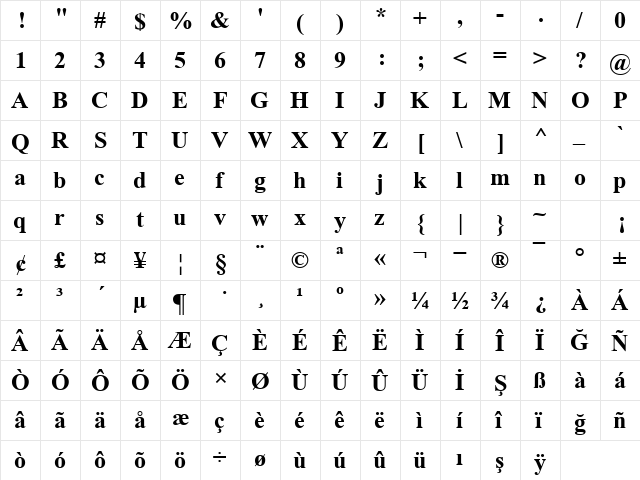
Times New Roman Digiscream Bold
Design Context for Times New Roman Digiscream Typeface
Times New Roman Digiscream is a composed and adaptable typeface that performs quietly and consistently across a wide range of design contexts. The heavy weight commands attention and anchors typographic hierarchies.